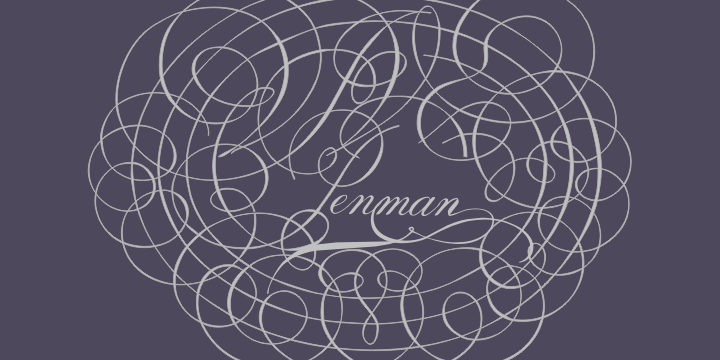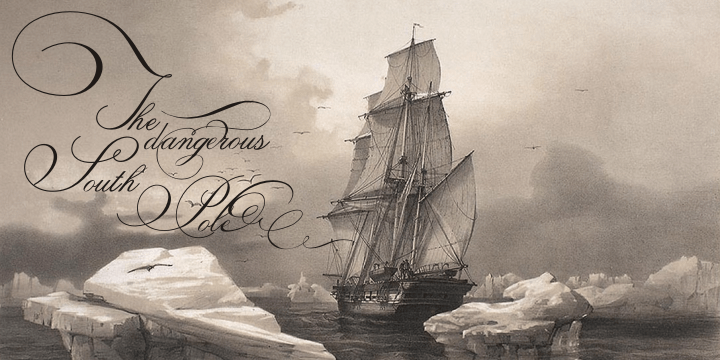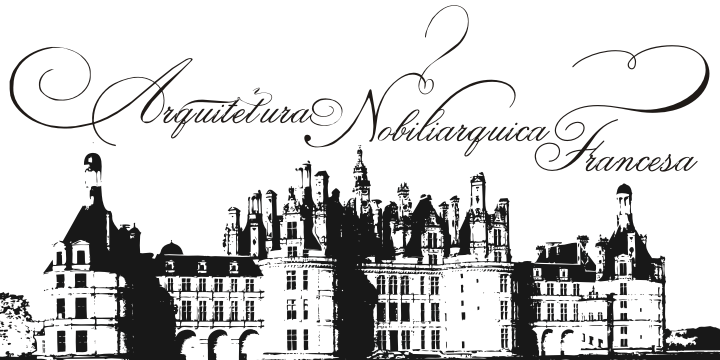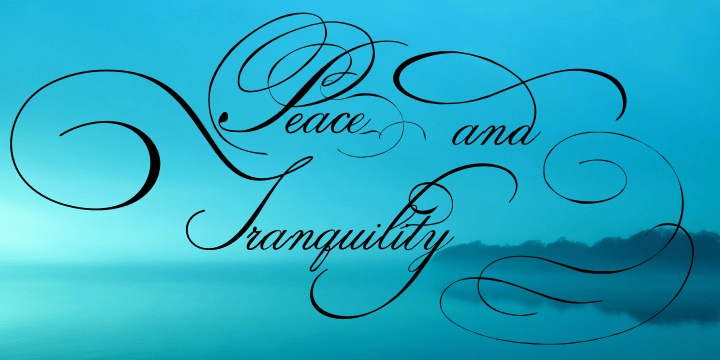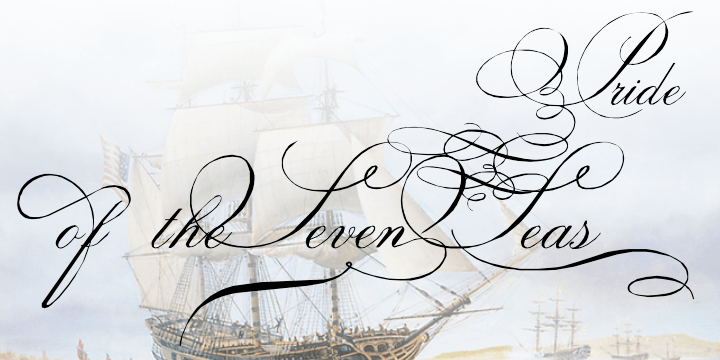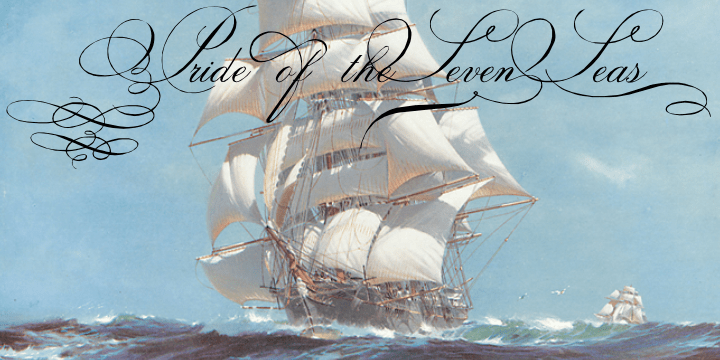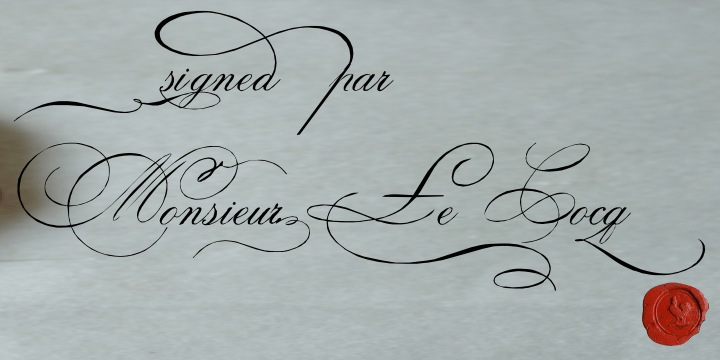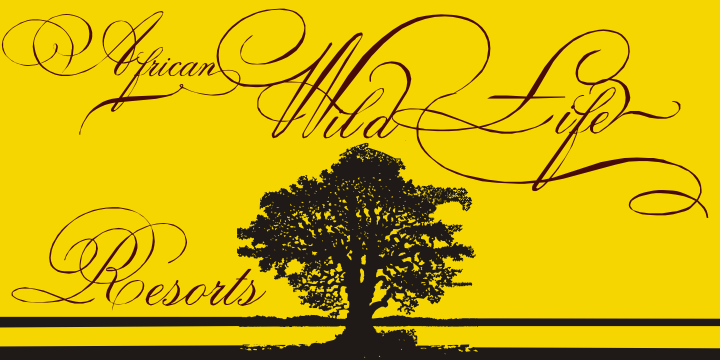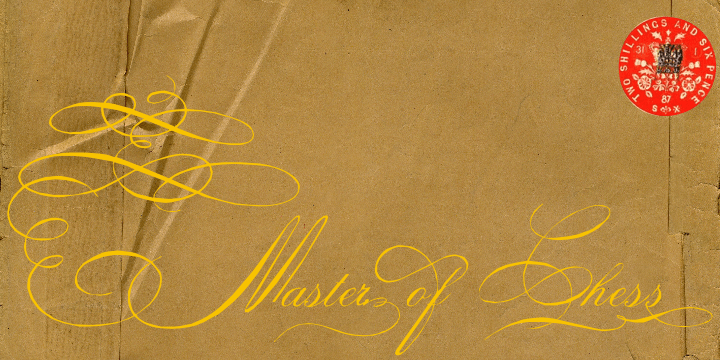
Indenture English Penman
Font Family by Intellecta Design
Indenture English Penman is based on research into original English and American indenture contracts from the eighteenth and nineteenth centuries, mostly with roundhand scripts, paragraph versals in Old English script and many, many flourishes. This font has a little of everything, with hundreds of glyphs: dozens of versals to each alphabet letter, some versals in Old English style, plus flourishes to use at beginnings of paragraphs or chapters, and many additional flourishes to create perfect ancient documents. To better use the resources of this font we suggest using the Glyphs resource in Illustrator and other software.